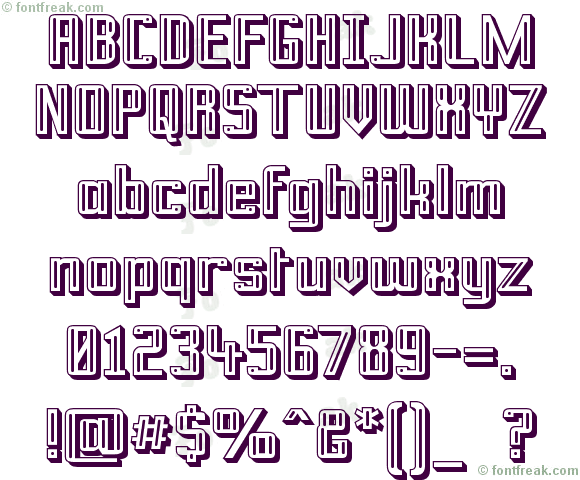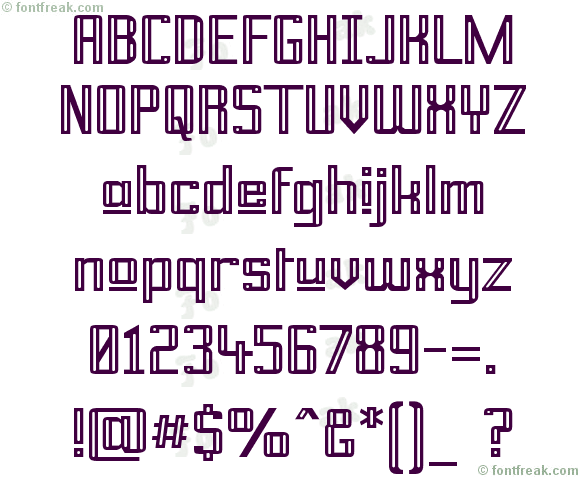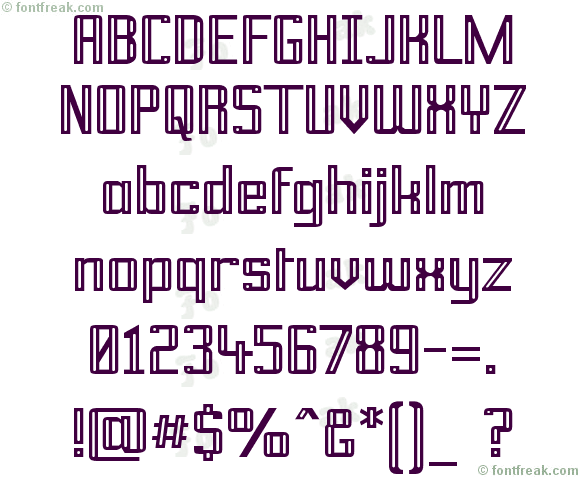
Prussian Brew
Prussian Brew Offset
Prussian Brew Upper
Prussian Brew by Gemfonts is a striking display font that captivates with its unique character and bold presence. Released in 2001 and available under a freeware license, this font stands out for its distinctive style that combines elements of modernity with a vintage flair. The Prussian Brew font showcases a robust stroke weight and a moderate contrast that gives it a solid, confident appearance. Its letterforms feature clean lines with slightly rounded edges, creating a friendly yet assertive vibe. The spacing is well-balanced, ensuring legibility while maintaining an eye-catching aesthetic.
This versatile font is ideal for a range of projects, making it a go-to choice for graphic designers and content creators. Its bold character makes it particularly suitable for attention-grabbing applications, such as movie posters, event flyers, and product packaging. Additionally, Prussian Brew is perfect for restaurant menus or signage, where it can effectively communicate a sense of style and ambiance. Small business owners looking to establish a memorable brand identity will also find this font appealing for logos and promotional materials.
The target audience for Prussian Brew encompasses graphic designers, small business owners, and anyone in need of a unique typeface that stands out in crowded visual spaces. Its combination of boldness and approachability makes it a practical choice for both professional and personal projects.
What truly sets the Prussian Brew font apart is its ability to evoke a sense of nostalgia while remaining contemporary. This balance makes it not only visually appealing but also functional across various mediums. For those seeking to enhance their designs, the Prussian Brew font free download offers an opportunity to incorporate a standout typeface that elevates any visual project.